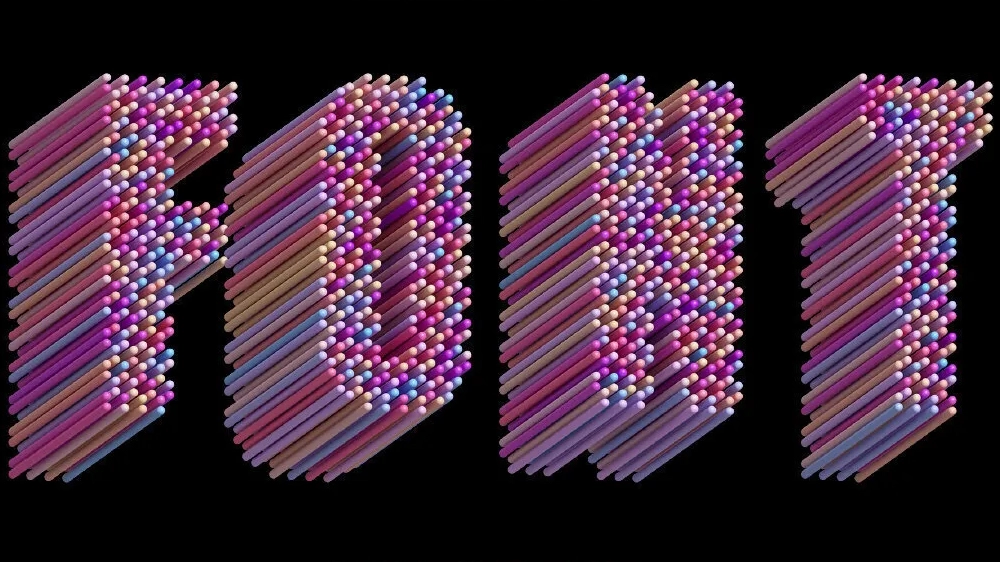
The best 3D fonts for impactful projects
The best 3D fonts for making an impact and creating visually interesting designs and artwork.
As designers, we’re careful about choosing our fonts because it’s not just what you say, but how you say it. And, sometimes, it’s important that the message steps off the page or out of the screen to take on a life of its own. Selecting the best 3D font for your project is one way of achieving this.
Primarily, 3D fonts are there to make an impact. That’s one of the key criteria we’ve looked for when selecting the 12 that appear on this list. But we’ve gone further than the wow factor, and tried to find fonts that generate visual interest in other ways. Having three dimensions can give lettering weight, substance and tangibility – how do typographers utilise this? We’ll take a look.
Of course, any font can be given a 3D feel with something as basic as a drop shadow in InDesign. You can go further and extrude lettering with a 3D modelling application, or design your own 3D font. With the selection below, however, we’ve got the best readymade 3D fonts for you to use in print, online or even in motion graphics projects. Some the fonts on our list are free, and you can find free fonts here as well.
The best 3D fonts for your project
01. 3D Blocky
This hand drawn lettering by Luke William Turvey and Natsuko Hayashida of Okaycat comes with a slightly naïve feel to it, delivered in a font family with eight styles that include 3D Blocky, 3D Bippy, 3D Bricky and even 3D Blocky Neue. The variance is whether the character faces and/or the extruded sides of the letters are filled or not. There are several fonts like it, but 3D Blocky is by far and away the most popular, easy to use and affordable at $29.50 for the set.
02. Nexa Rust
Nexa Rust is a very popular choice for designers – perhaps because it offers a system of 83 fonts split into wide variety of categories including Slab, Sans, Script, Handmade and Extras. What binds them is not their proportions or metrics, but the distressed ‘rust’ look applied to many of the font faces. For our purposes, what’s of interest is the five different shadow versions available in each category which gives you ample flexibility in creating rusty headers that stand above the surrounding copy. It’s free to use in print, but you must credit the Fontfabric foundry if used online. Nexa Rust is included in Adobe Fonts.
03. Bungee
This rounded, easy-going, bulky font feels decadent in a way those snooty high-contrast serif typefaces never could be. Like other fonts listed here, its styles can be applied in layers to create 3D lettering as well as other effects. What’s unique about Bungee is that it was designed for vertical signage and you can easily imagine a neon inline illuminating each of its big, fat characters stacked above the doorway to a sleazy motel. Bungee is free and is included as a Google Font.
04. Town
Town is a versatile contemporary sans serif display font consisting of uppercase characters that fits perfectly into the worlds of branding, packaging, signage and advertising. The skeleton of the font actually has traditional industrial, geometric origins but these letters can be crafted for today’s design work by adding layers such as Shadow, Emboss or Black Lines (3D hatching). Mix up the styles applied within a word for an eclectic look. High-end bars and spirits brands seem to be a target market for Town, which costs $20 per style or $250 for the entire collection.
05. Detroit
Designed by Alex Sheldon of Match and Kerosene, Detroit enables you to combine various font layers to create 3D lettering in a variety of different ways. You can build up the characters using shading cast from different angles, such as Bottom and Right, and place these within the font’s outline. Colouring these layers within the Bevel version of the Detroit leads to some dazzlingly imaginative and unexpected effects that set it apart from other fonts in the 3D category.
06. Marbles
Sometimes the 3D effect can be achieved more subtly than literally extruding lettering and shading the sides of its three-dimensional forms, or stacking layers. Marbles is an experimental typeface – the result of a collaboration between F37 Foundry and Superfried – where the contrast between the thin and thick strokes of the oblong outlines that form each character are suggestive of light and shade but are entirely two dimensional. This is augmented when textures, such as marble, are used to fill the positive spaces within the letter forms, which lends a sense of substance and materiality. Brush in a little shading as you finish the artwork and the results can be astoundingly sophisticated.
07. Swish
As with Marbles, Swish doesn’t employ obvious devices to create a 3D effect. This is entirely optical, using the same techniques as MC Escher to trick our brains into perceiving seemingly impossible perspectives via the curves and angles of the flat forms in his imagery. Its Dutch designer, Leon Hulst, was inspired by European Brutalist architecture where angles, curves and varying thicknesses of forms change how we understand spaces in the built environment. Add some colour to the letter faces and you’ll have a lot of fun with Swish – just don’t stare at the W for too long…
08. Brim Narrow
Brim Narrow is a classy, traditional sans serif font inspired by a woodcut aesthetic. With 208 characters presented across eight layer styles, it enables you to create 3D lettering that goes deeper and deeper still, with a bit of optional hatching on the top layer for added personality. With Face, Outline, Half Extrude and Full Extrude (and outlines for both extrusions) there is plenty to explore, and adding colour can create a wild experience out of what is essentially quite formal lettering. Counter to this, it can also be used to create very subtle effects – a cover for a novel or book of poetry, perhaps. It’s free if you have Adobe Fonts.